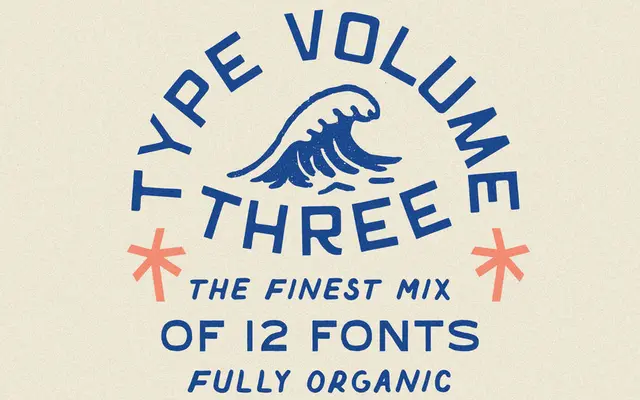
Type Volume Three
Type Volume Three specimen from Taylor Penton
A bundle of twelve display typefaces from independent designer Taylor Penton, sold under a single flat-fee commercial licence.
A bundle of twelve distinct typefaces spanning a range of display styles including scripts, decorative, and expressive faces; no single classification applies, but display best captures the collection's retail positioning.